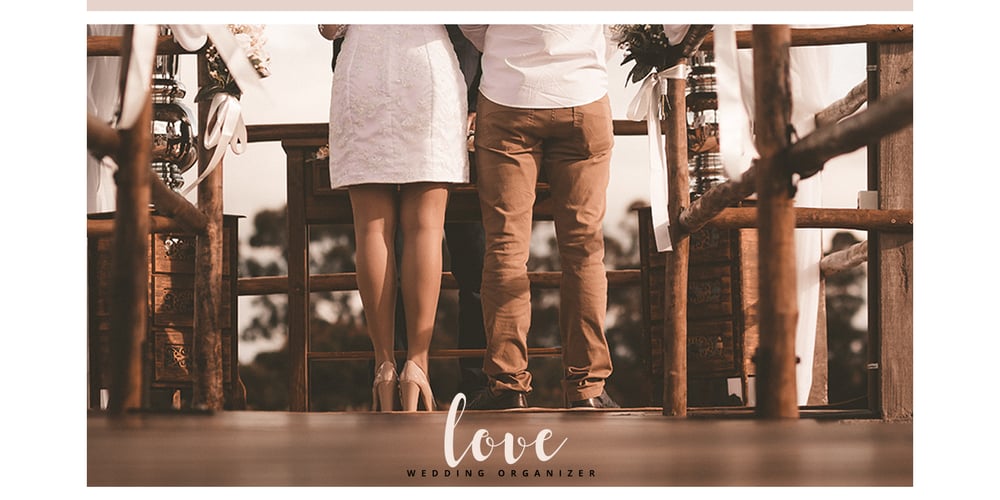
Romantis Script
Romantis Script font
Romantis Script Font Family was designed by Juni Fadil Putra and published by FadeLine Studio. Romantis Script contains 1 styles and family package options. Romantis Script is a handmade font script, designed to convey elegance and a bold natural style. Romantis Script will function perfectly for fashion, brand e-commerce, trend blogs, or any business that wants to look classy and elegant. This font is ideal for upper-class types of logos and headlines, but don’t forget greeting cards, invitations, posters, advertisements, and various web uses.